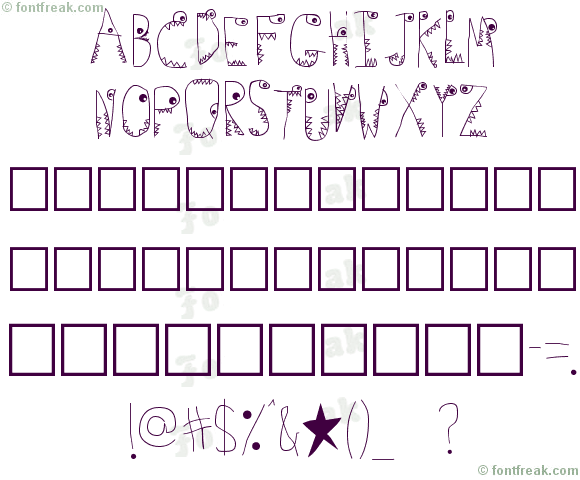
Germs
About Germs
The Germs font, created by Divide By Zero, is a distinctive display typeface that perfectly embodies a playful and quirky aesthetic. With its unique handwritten style, Germs captures attention with charmingly irregular letterforms that evoke a sense of spontaneity and creativity. The strokes exhibit a moderate weight, giving the characters a friendly appearance, while the subtle variations in thickness add visual interest without overwhelming the reader. The spacing between characters is intentionally loose, enhancing readability and allowing each letter to breathe, which is ideal for capturing a casual yet engaging vibe.
Germs font is particularly well-suited for a variety of creative applications. It shines in projects like children's book covers, where its whimsical nature can resonate with young audiences. Additionally, it makes a great choice for promotional materials for artistic events or festivals, providing a fun and inviting look. This font can also enhance social media graphics, giving content a fresh and lively touch that stands out in crowded feeds. Restaurant menus aiming for a casual atmosphere or coffee shop branding can benefit from Germs’ approachable design, making it a versatile option for small business owners looking to establish a unique identity.
Targeting graphic designers, content creators, and small business owners, Germs font free download offers a fantastic resource for those seeking to inject personality into their projects without the constraints of commercial licensing. What sets Germs apart is its ability to maintain a balance between readability and artistic flair. The playful characteristics of this font not only draw the eye but also create a memorable experience for anyone engaging with the text. Its blend of charm and practicality makes it a standout choice in the world of typefaces, ensuring that your designs leave a lasting impression.